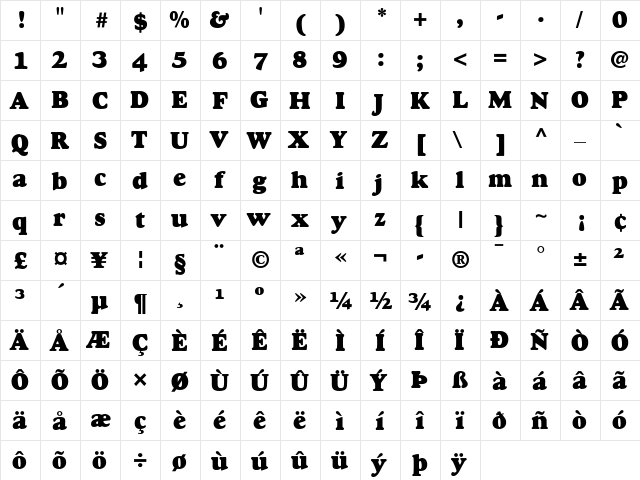
Goudy Heavyface Regular
Design Context for Goudy Heavyface Typeface
Goudy Heavyface takes a measured approach to typography — its balanced proportions and neutral character make it a reliable workhorse for both digital and print work.